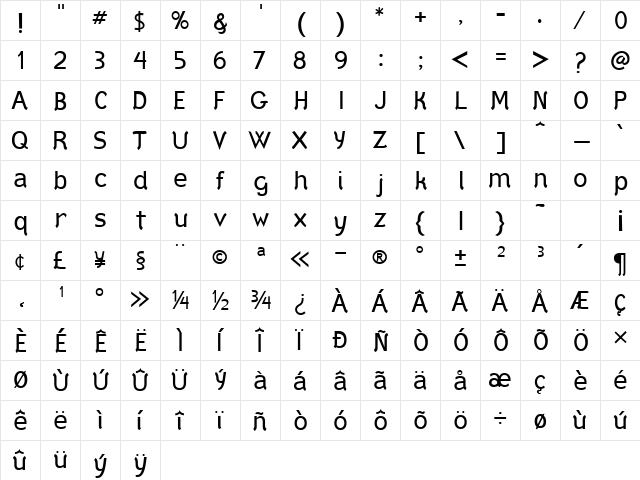
Styllo Regular
Design Context for Styllo Typeface
Styllo is a composed and adaptable typeface that performs quietly and consistently across a wide range of design contexts.